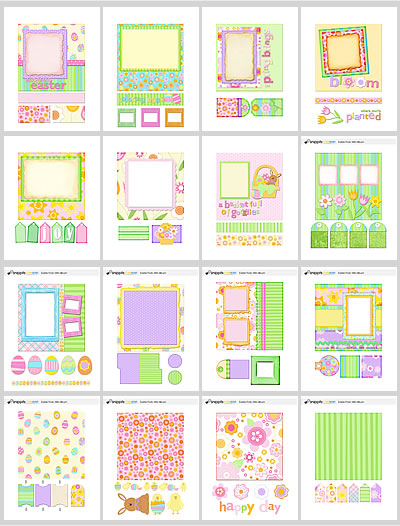
layouts and cards with any of the newest Easter alphabets
and Journaling Delights featured in this newsletter – there
Jillustration's New Baby Bundle |
announcements and
pages of memories, the four alphabets and matching Journaling
Delights in Jillustration's New Baby Bundle will give you
just the right additions to enhance your own new addition.
coordinate perfectly with Jillustration's
New Baby Bundle are perfect to create accents, embellishments and backgrounds
for all of your 'new' projects.
Cheryl’s Easter Bundle |
Celebrate Easter with
the warm country style of Cheryl's
Easter Bundle.
Soft and homey colors with designs of delightful |
charm give each of these three
new alphabets and matching Journaling Delights adorable
appeal.
and Journaling Delight designs
is all new and all spring with bold letters and bright
accents, perfect for any and all spring projects.
Enhance all of your Easter
Frolic projects with coordinating digital Paper
Packs and downloadable
.pdf Tag
sheets.
Easter Frolic Mini-Album |
Bohemian Font Mini Bundle |
Show off the your fun and
funky side with these three great new Bohemian
fonts, bundled